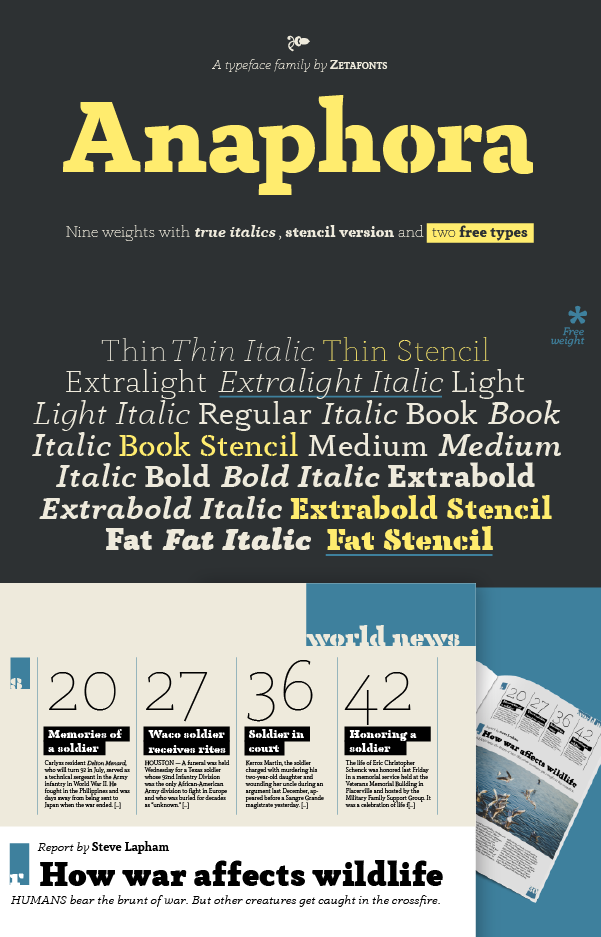
Anaphora
Discover a versatile and modern serif font designed for a wide range of applications. Anaphora is a comprehensive typeface family that offers a unique blend of elegance and sophistication.
This contemporary serif font features a distinctive wedge design with a generous range of weights, from thin to fat, each accompanied by true italics for added versatility. Whether you're working on editorial content, advertising materials, or display typography, Anaphora's 9 weights will help you achieve your desired visual impact.
The font's wide counters and low x-height make it highly readable at text sizes, while its uncommon shapes give it a strong presence in display sizes. With an extended character set covering over 40 languages using the Latin alphabet, as well as Greek and Russian Cyrillic, Anaphora is perfect for multilingual projects.
In addition to its extensive language support, this font also includes a range of OpenType features, including small caps, four sets of figures, fractions, superior & inferior figures, alternate forms, and discretionary ligatures. For added flair, the family also includes 4 stencil weights ideal for creating custom logos and titling. Whether you're working on a book, magazine, or advertising campaign, Anaphora's unique combination of elegance and versatility makes it an excellent choice.